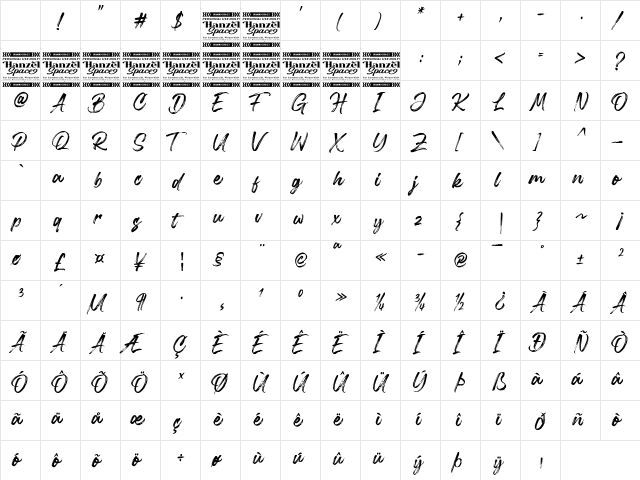
Complete Arthemis Regular glyph index. Displaying only characters natively supported by Arthemis Regular font.
Arthemis is a composed and adaptable typeface that performs quietly and consistently across a wide range of design contexts.